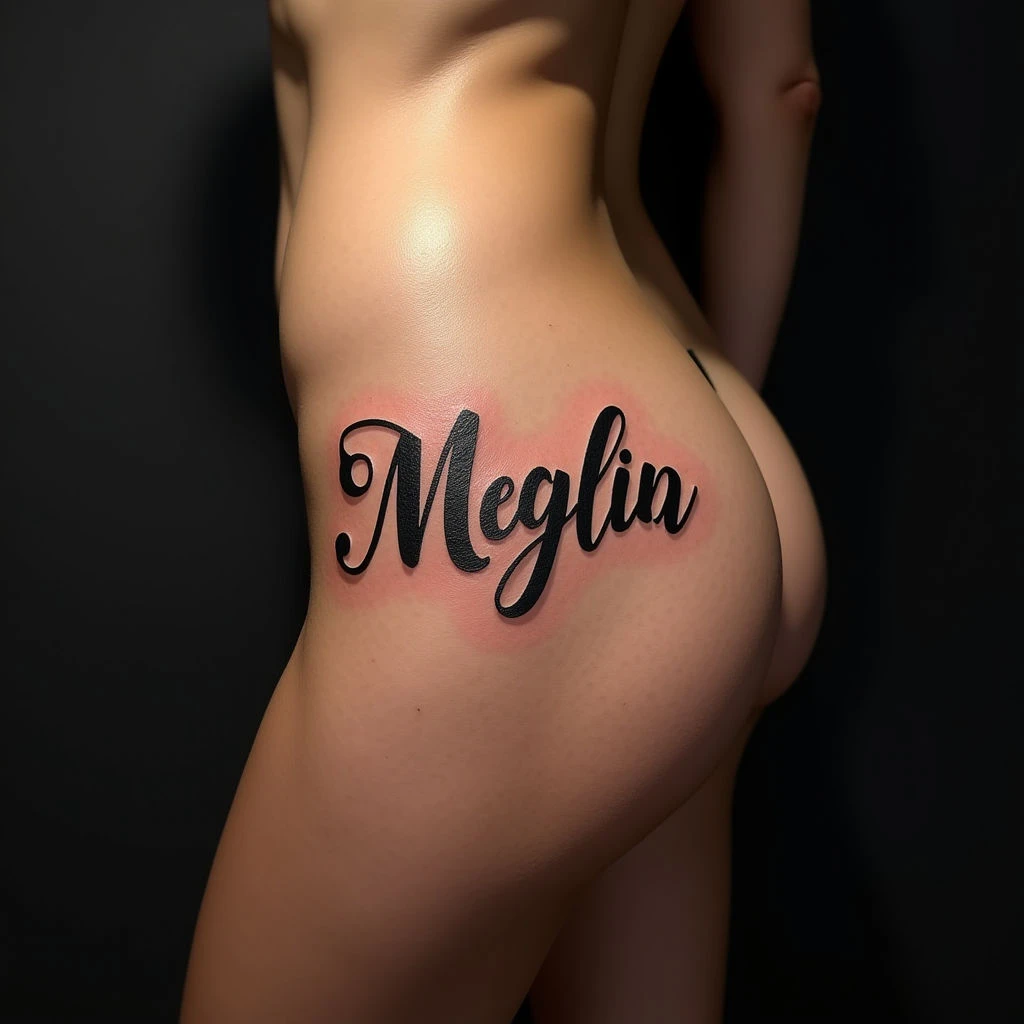
Discover beautiful and elegant tattoo fonts perfect for females. We explore script, calligraphy, and modern typography ideas ideal for hip placement, using black and gold accents.
Best Tattoo Fonts for Females on the Hip
Smooth, flowing curves and consistent black linework characterize this name tattoo. Positioned along the lower back's natural curve, the design utilizes solid black ink with subtle shading to create depth and a soft aesthetic.
This style lends itself beautifully to hip placement for females seeking an elegant touch. Script or calligraphy fonts are popular choices here, often enhanced with gold accents to elevate the overall look – creating a delicate yet impactful statement on the body.
Consider modern typography options too; their clean lines can offer a contemporary feel while maintaining readability and complementing the hip's shape. A medium size (m) is generally ideal for this area, ensuring visibility without being overwhelming.